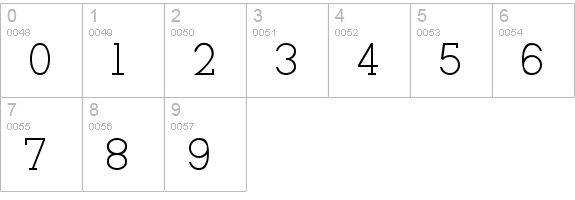
Stymix Font Details
Introducing Stymix font - a stunning display typeface that seamlessly blends elegance with a touch of modern flair. With its unique combination of sharp lines and sleek curves, Stymix is the perfect choice for projects that demand a sophisticated and contemporary look. This versatile font is suitable for a wide range of design applications, from branding and advertising to editorial and packaging design. Its clean and stylish appearance is sure to make your text stand out and leave a lasting impression on your audience. What's more, Stymix is available for free download at FontsMarket.com, making it easily accessible for designers and creatives looking to add a touch of sophistication to their projects without breaking the bank. Don't miss out on the opportunity to elevate your designs with this exceptional font - download Stymix today!